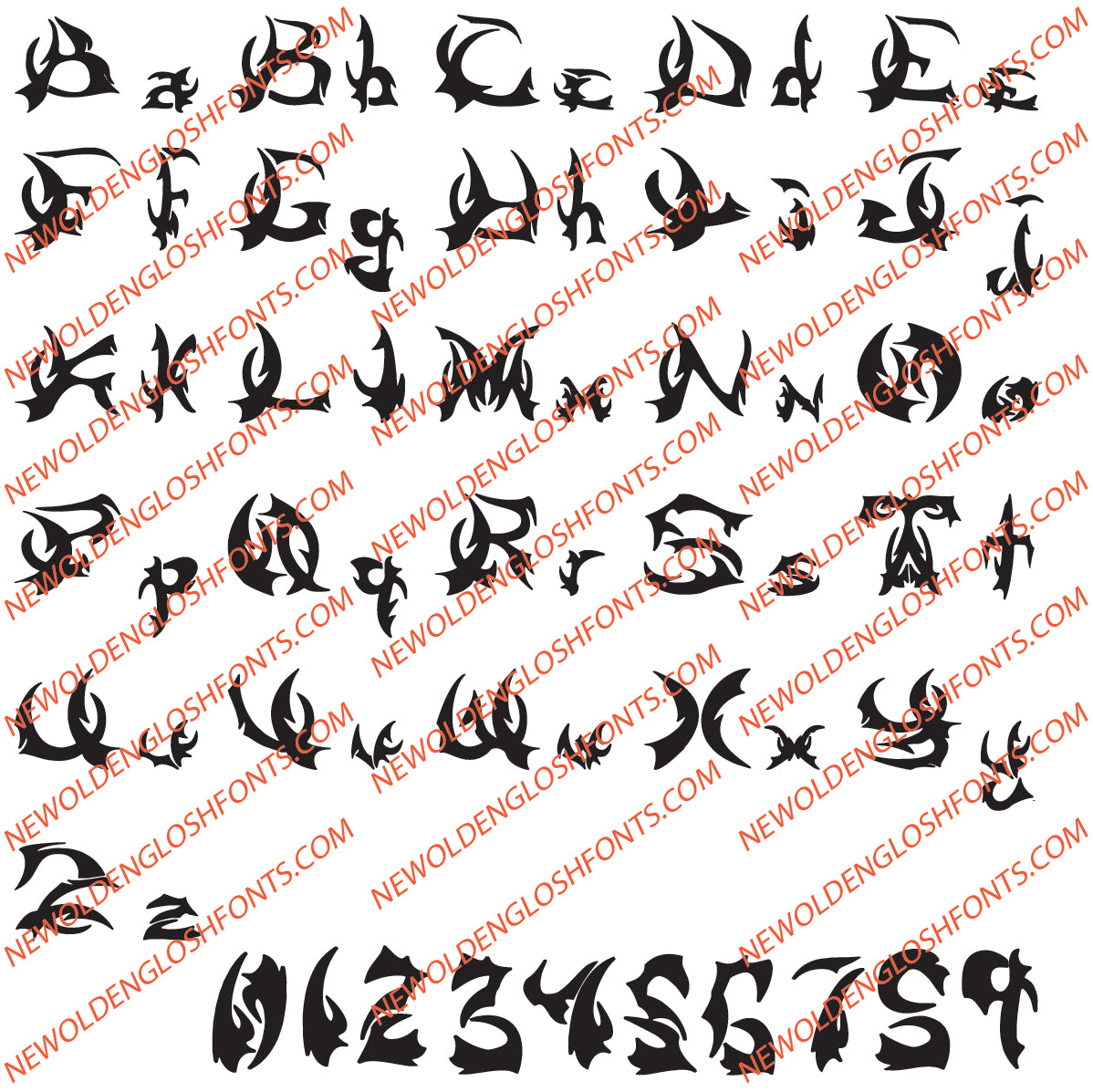
BAT BLADE
Long ago, when monks bent over their desks in candlelight, every stroke of the quill mattered. In those days, the alphabet was not quite as we know it now. Among the strange and lovely shapes were letters like þ (thorn), which made the “th” sound, and ð (eth), its softer twin.
But in the dark corners of old scriptoria, a curious rumor spread—that certain letters were not drawn by monks alone, but by bats. At night, when parchment still glowed faintly with ink, bats would flit in through the rafters, dragging their wings across the page. Their strokes were crooked, sharp, and spidery. Some scribes swore that the jagged forms of letters like ȝ (yogh) came not from human hand, but from the trembling mark of a bat’s wingtip.
In the morning, when the abbots inspected the work, they found letters strange and wild. Yet instead of erasing them, they kept them. The odd shapes became part of the alphabet, part of Old English itself.
And so, they whispered, when you see the twisting letters of old manuscripts, remember: not all were written by men. Some were left behind by bats, who once spelled the night.